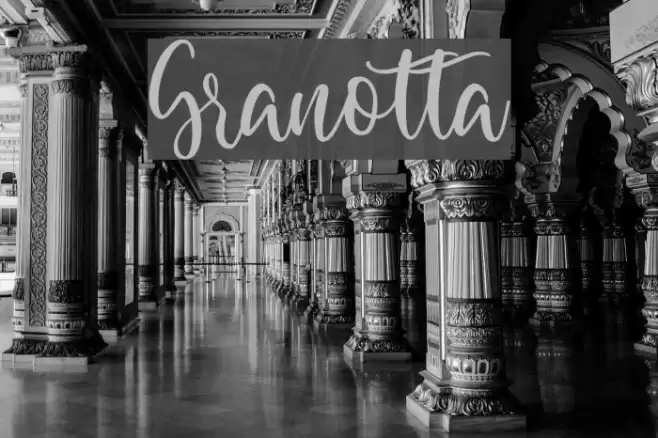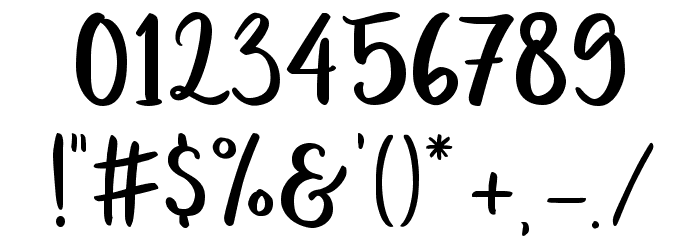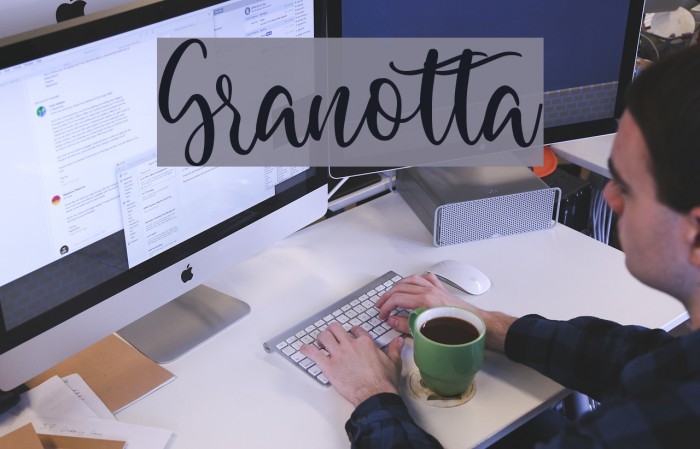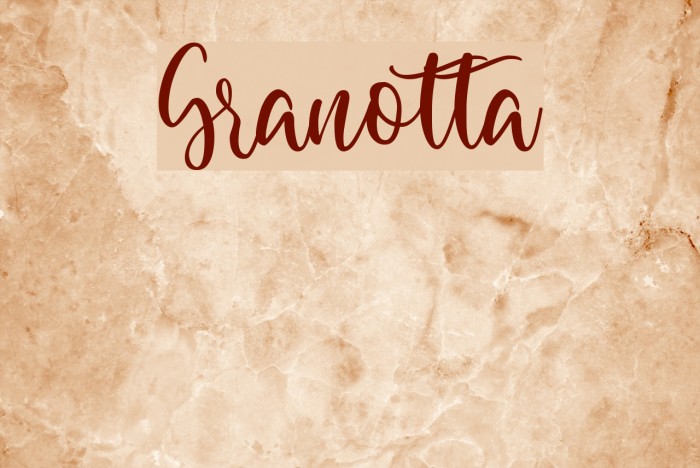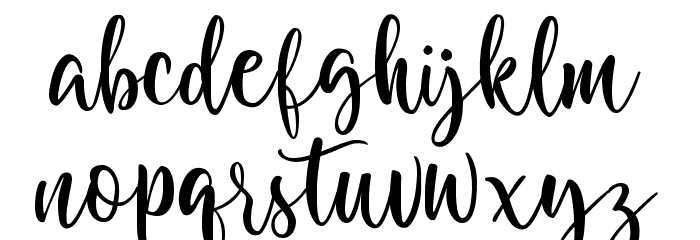
Granotta Font
Granotta Description
This font features a lively and flowing script style, characterized by its elegant curves and smooth connections between letters. The uppercase letters are bold and expressive, with a slight slant that adds a dynamic feel. The lowercase letters maintain a consistent rhythm, enhancing readability while preserving the font's decorative nature. Numbers and special characters are crafted with the same attention to detail, ensuring a cohesive look across all elements. The overall design exudes a sense of sophistication and creativity, making it suitable for projects that require a personal touch.
A lively and elegant script font with smooth, flowing curves from Uncategorized fonts.
- Proposed Projects: Ideal for wedding invitations, greeting cards, branding, and logo design.
- Use Case: Logos, Invitations, Decorative text